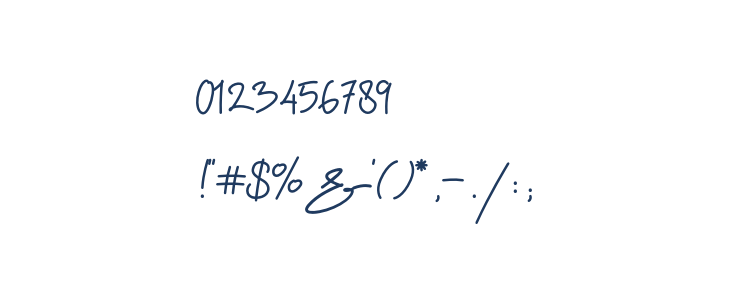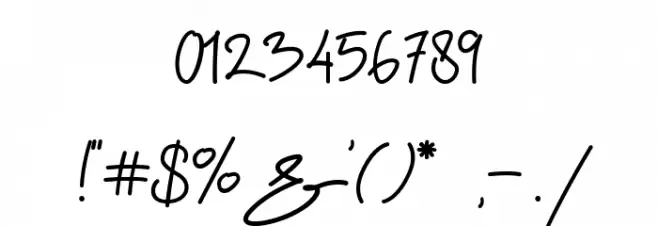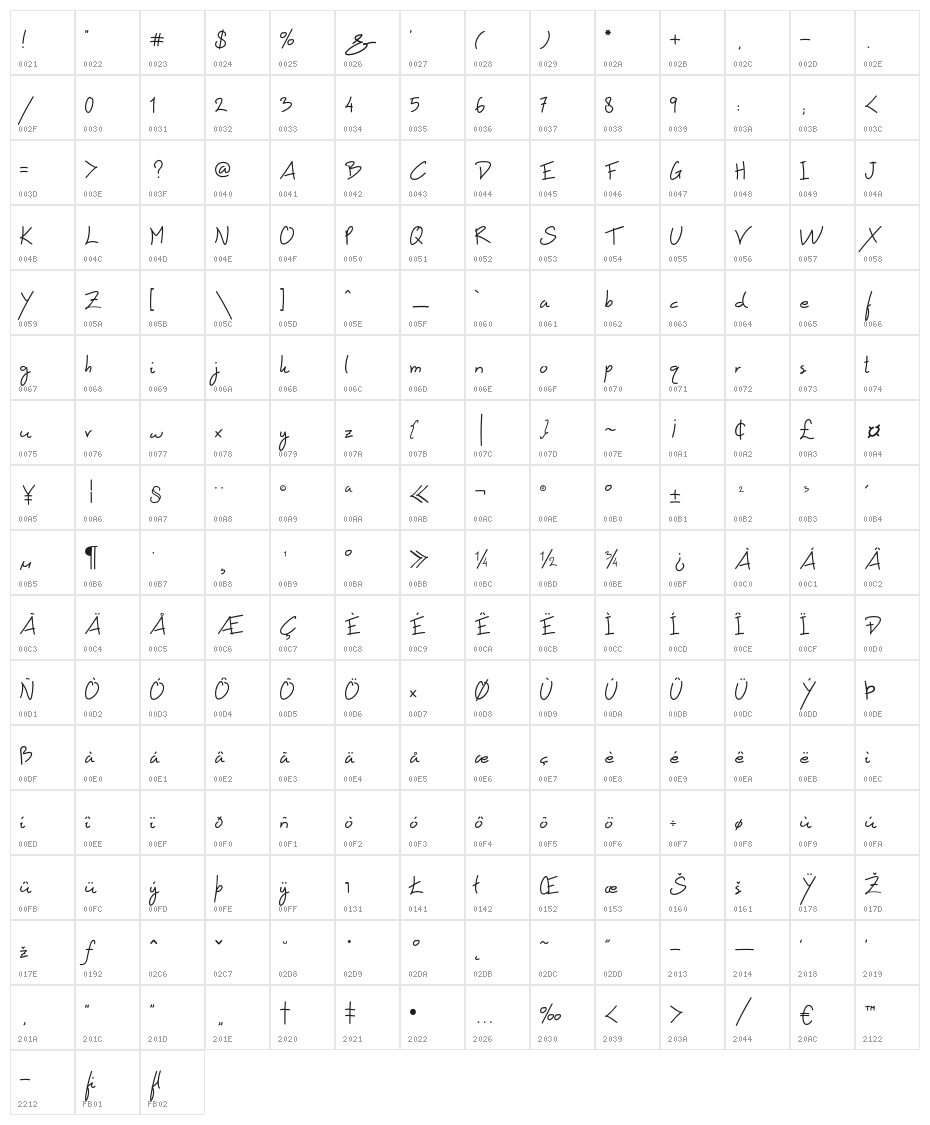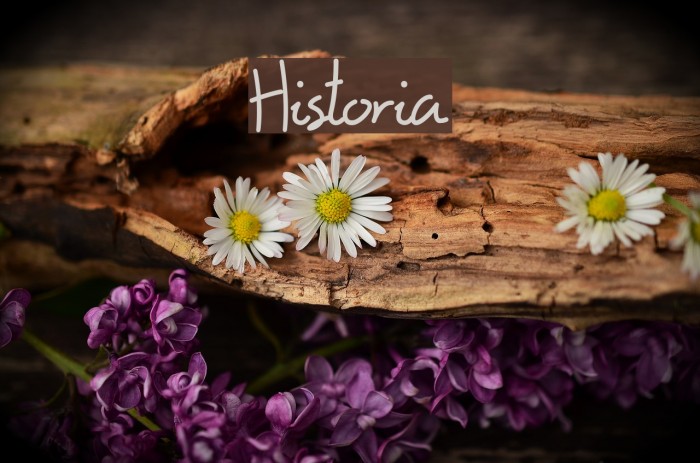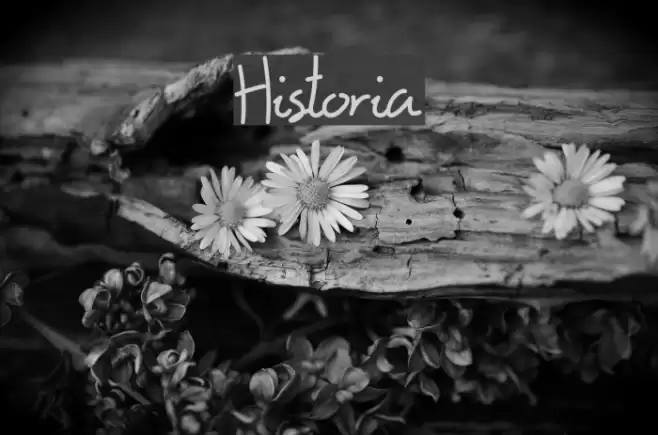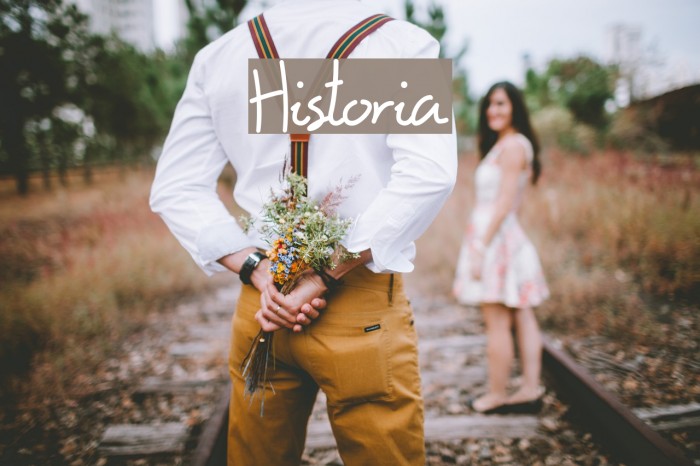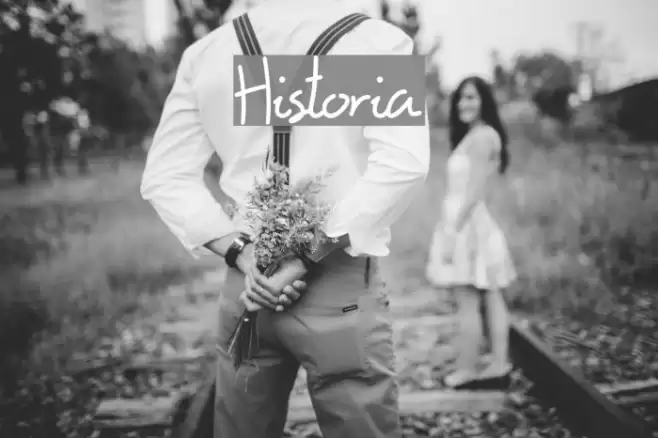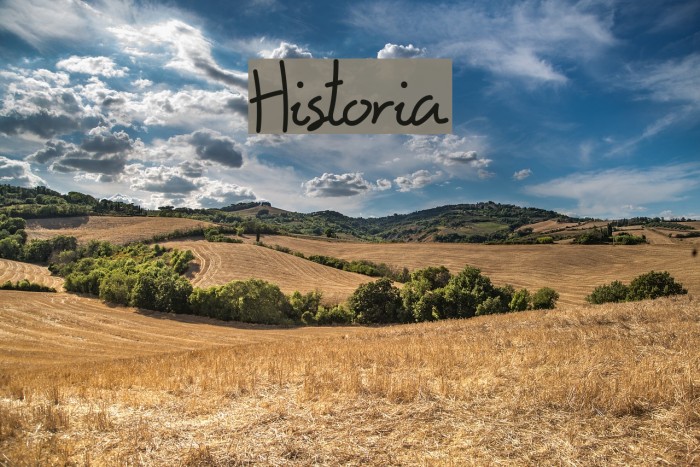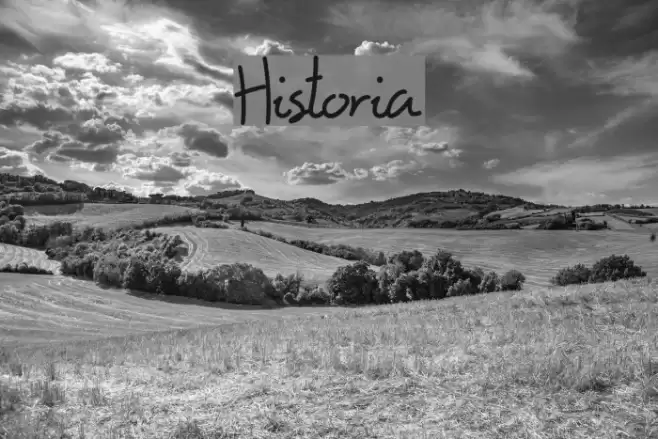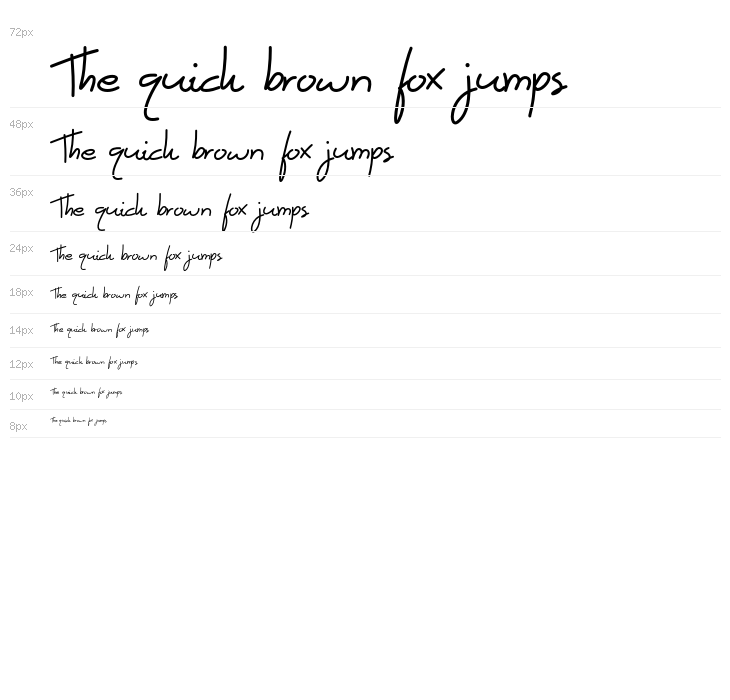
Historia Font
Historia Description
This font features a dynamic and expressive handwritten style, characterized by its fluid and slightly irregular strokes. The uppercase letters exhibit a playful yet sophisticated flair, with varying heights and angles that add a sense of movement and personality. The lowercase letters maintain a consistent flow, enhancing readability while preserving the font's artistic nature. Numbers and special characters are crafted with the same attention to detail, ensuring a cohesive look across all elements. The overall design is both casual and elegant, making it suitable for a variety of creative applications.
| Overall Style | Casual, Artistic |
| Proposed Projects | Ideal for greeting cards, invitations, personal branding, and creative projects that require a personal touch. |